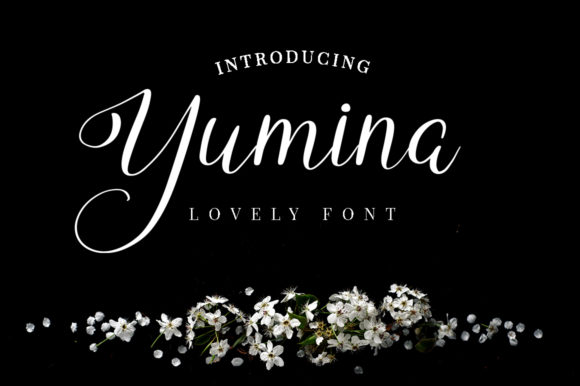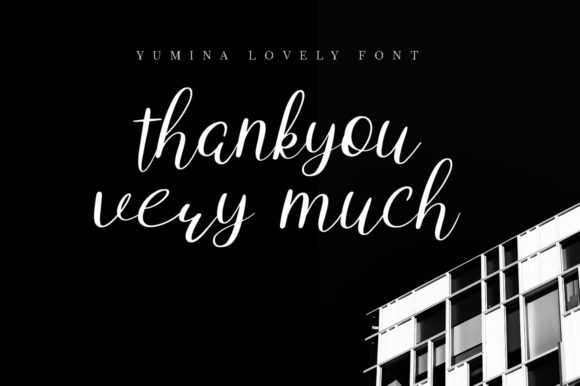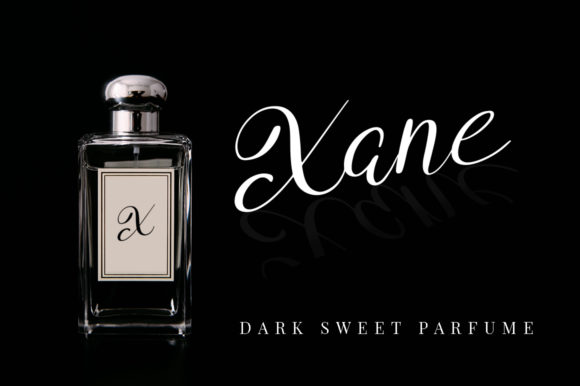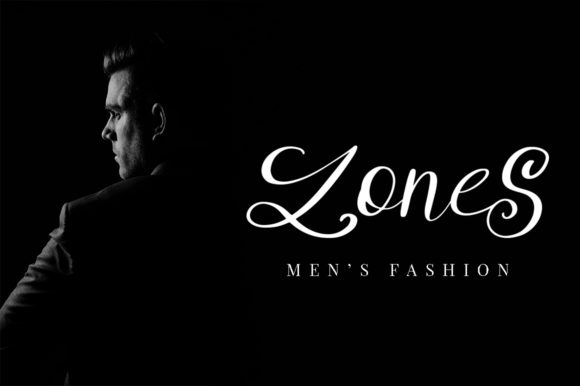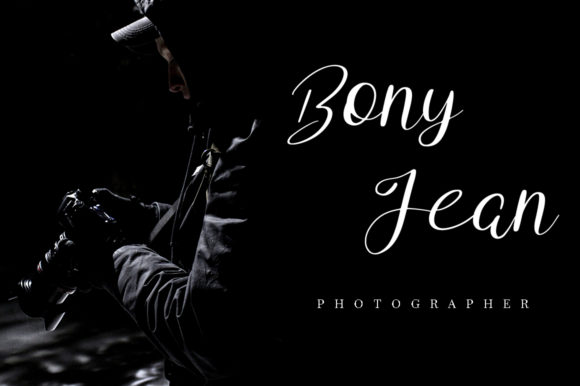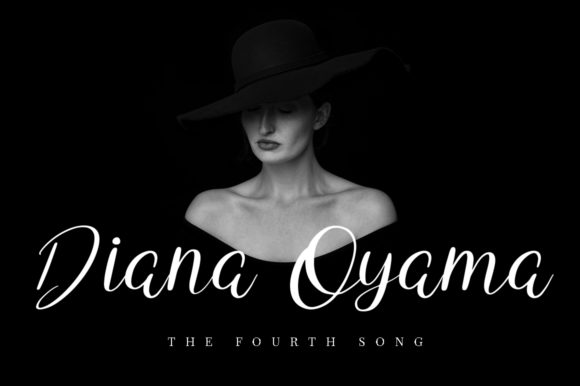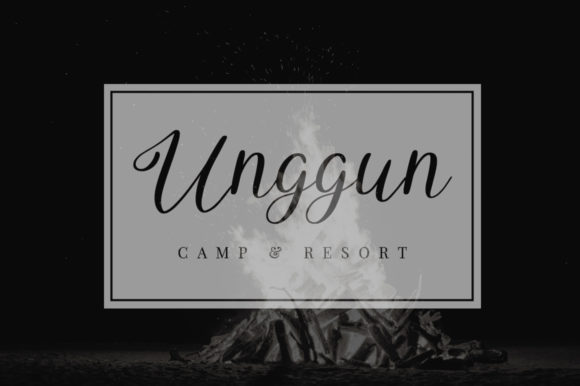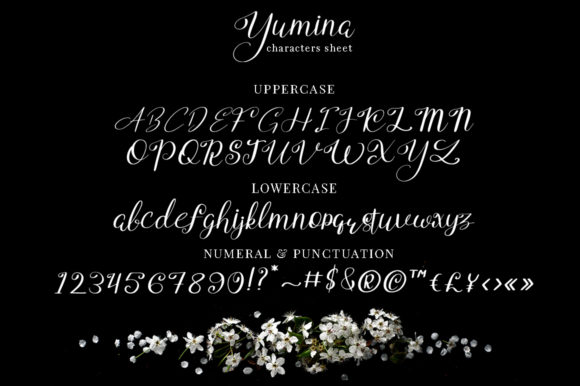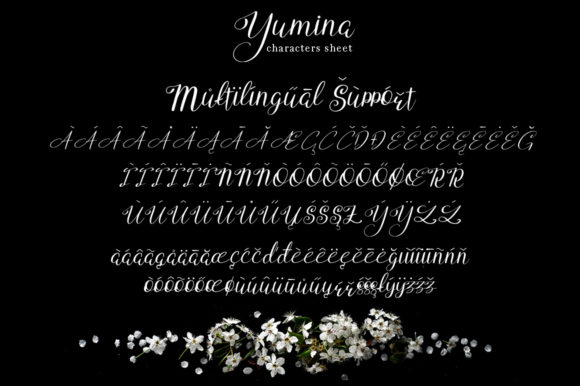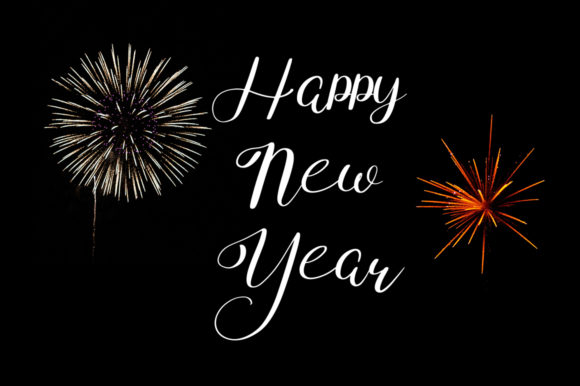
Yumina Font
About Yumina Font
The Yumina is a lovely script font with beautiful swashes and a natural feel.
It’s perfect for greeting cards, branding materials, business cards, quotes, posters